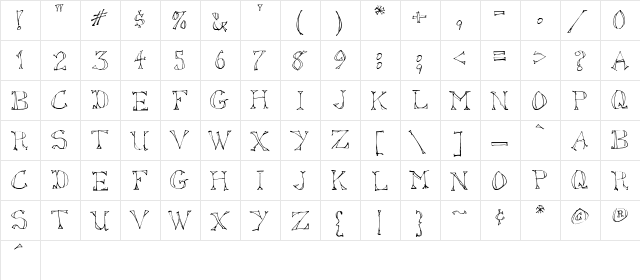
Sketched Out Regular Font Preview
Sketched Out Regular
Sketched Out Regular Font Details
| Designer | Stanley Roland Frantz, deFaced fonts |
Design Context for Sketched Out Typeface
Sketched Out is a composed and adaptable typeface that performs quietly and consistently across a wide range of design contexts.